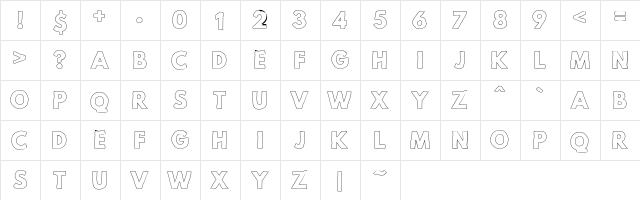
Mild Life Outline Personal Use Outline
Design Context for Mild Life Outline Personal Use Typeface
Mild Life Outline Personal Use brings ornamental detail and strong personality to headlines and identities, where visual impact matters more than quiet functionality.
Font Pairing: Pair with a clean neutral sans-serif for body copy to let Mild Life Outline Personal Use's character lead without overwhelming the composition.
Pro Tip: Use Mild Life Outline Personal Use exclusively at display sizes — it was designed to be seen, not read at length. Let a neutral companion handle body copy.